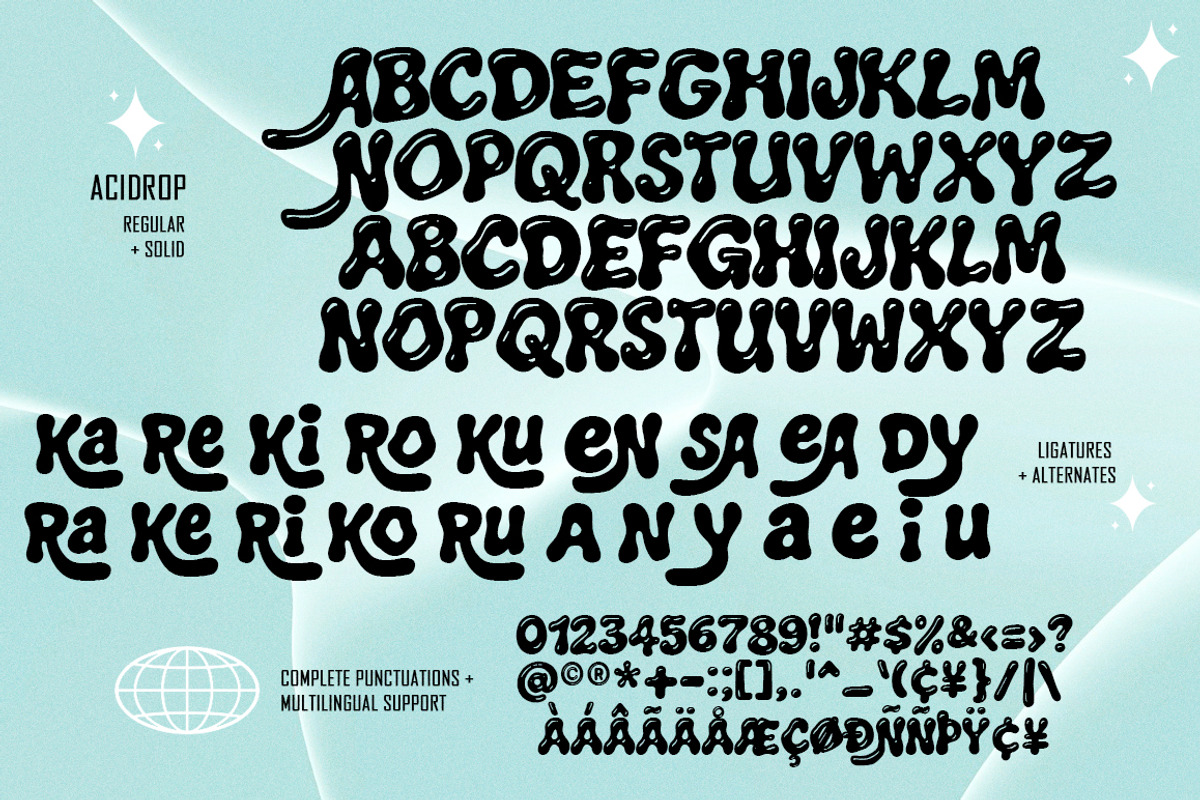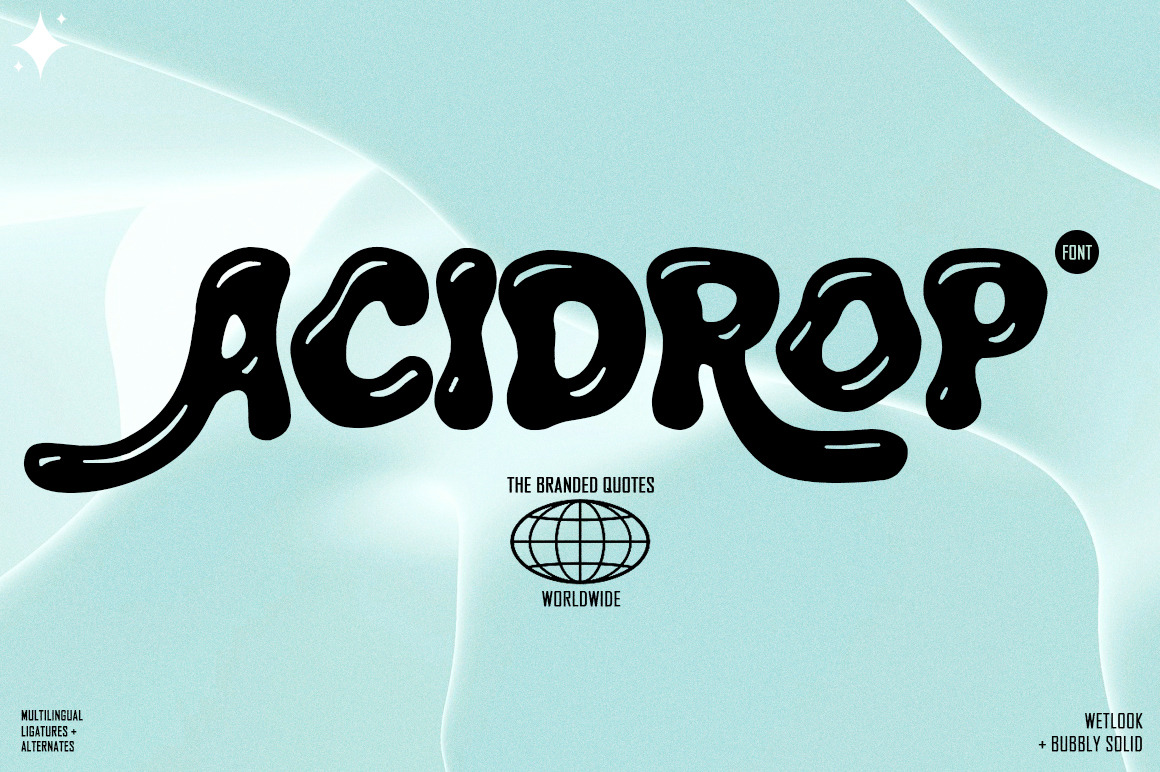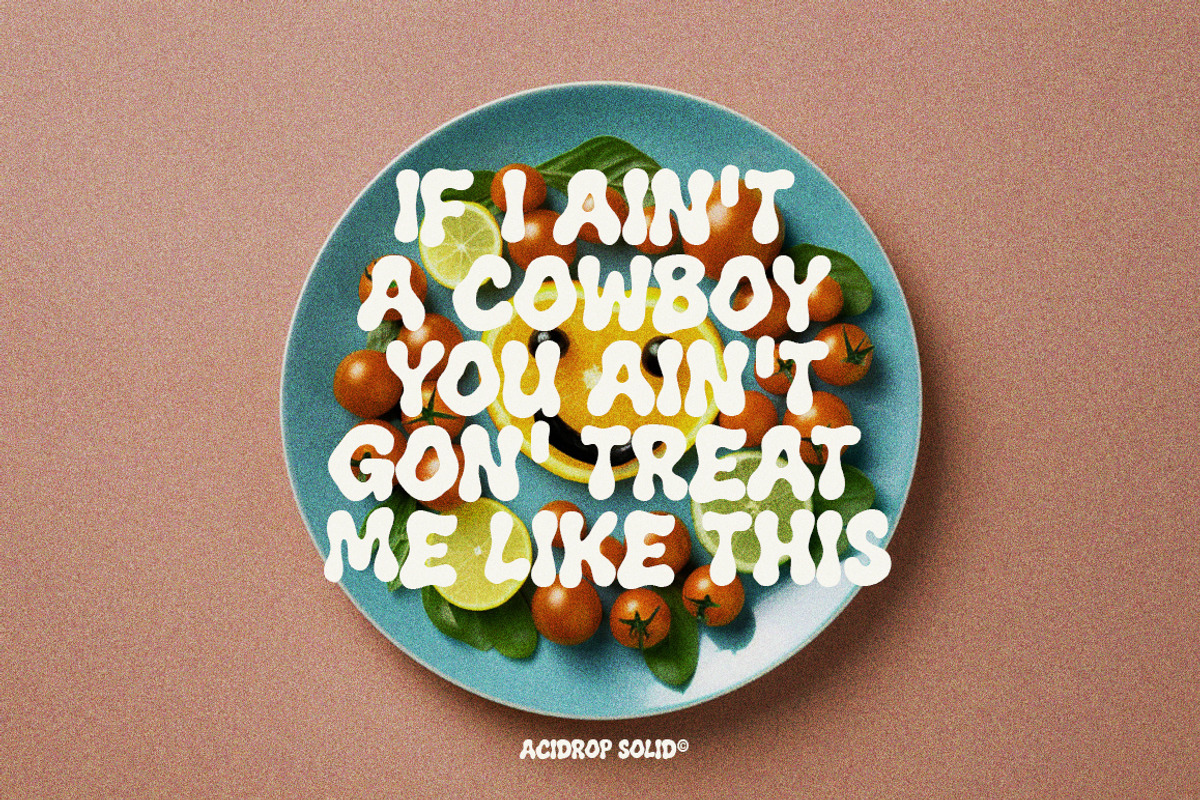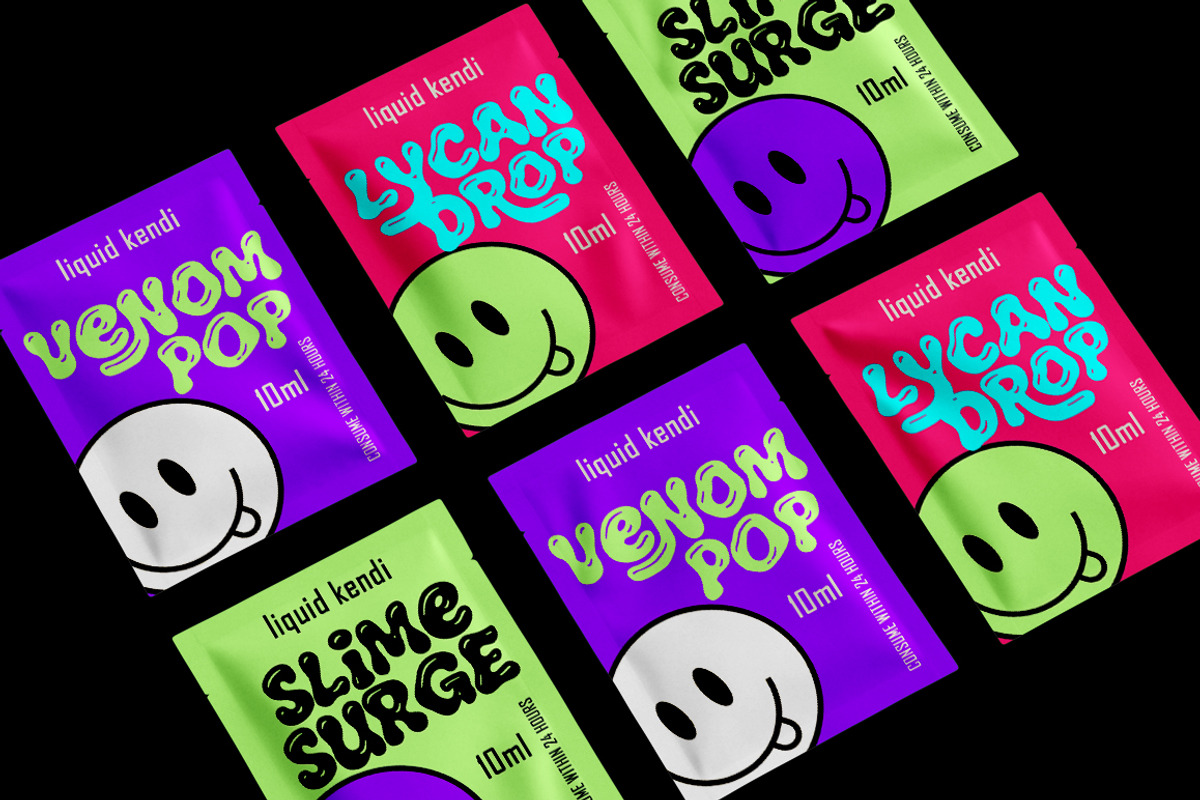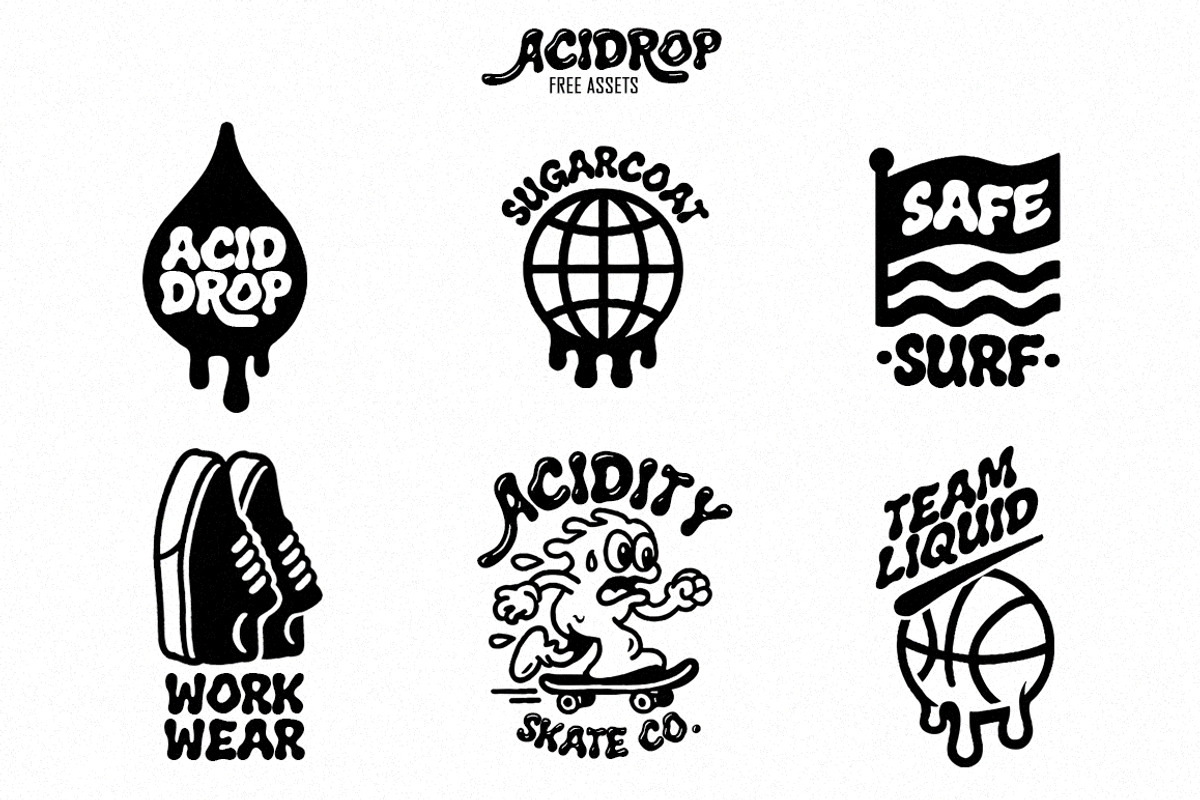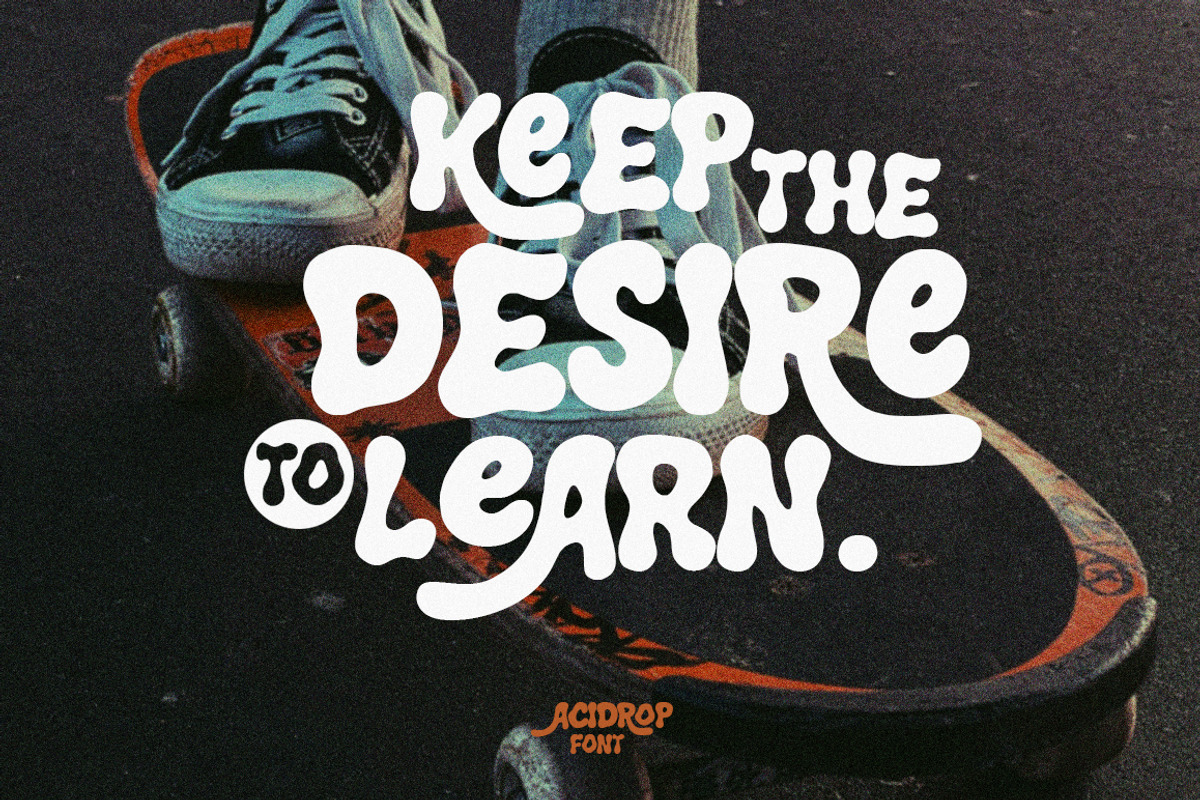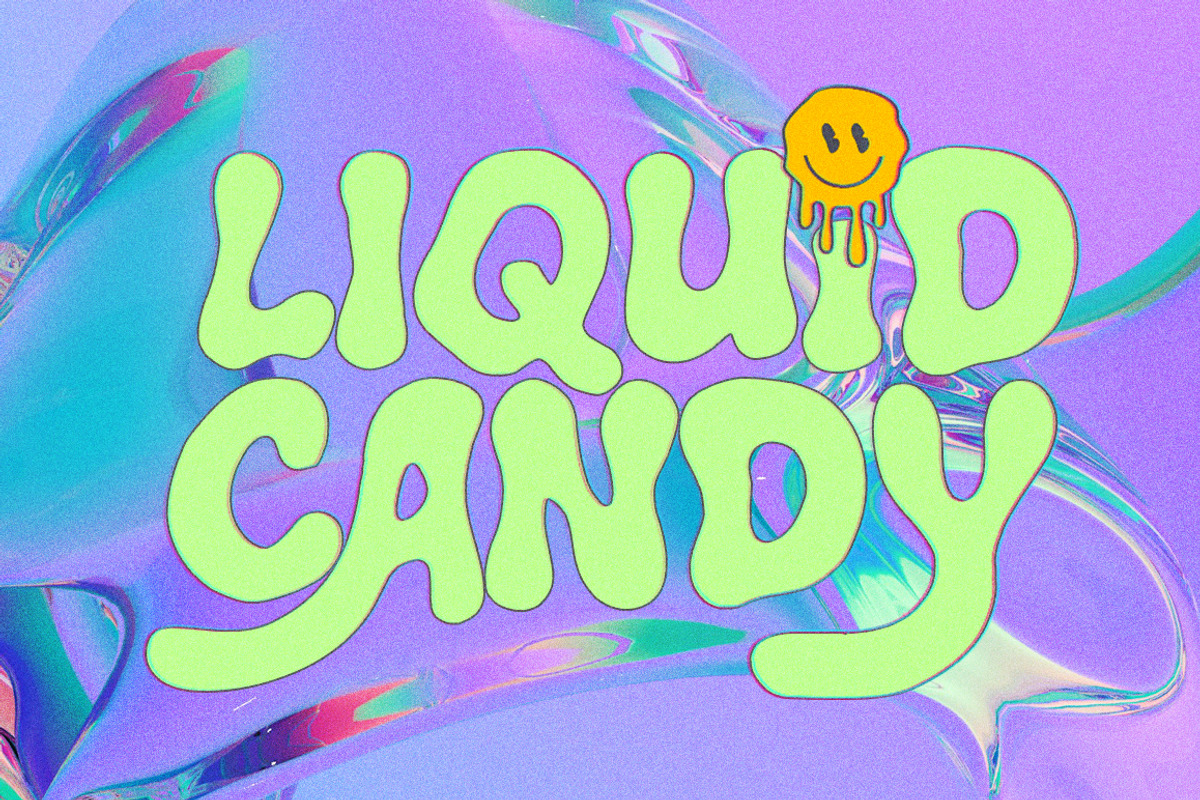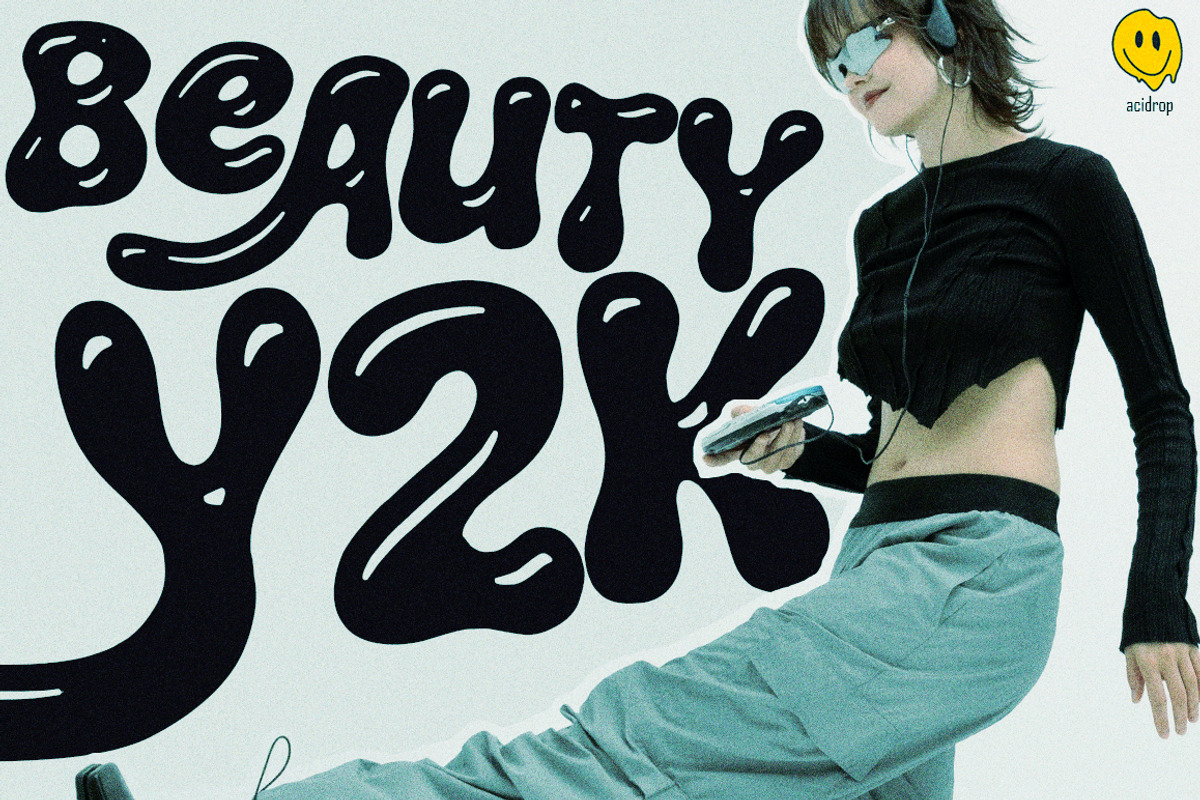
Acidrop Font
Acidrop is a bubbly Y2K vibe font with built-in shine and wet-look effect. Its playful appearance makes it ideal for projects that seek to convey energy and modernity. Once the OpenType features are turned off, Acidrop turns into a generic-looking squiggly font that is great for branding and one-liner or multiline quotes. It has two different variations so you can add your own liquid and bubble text effect on the font. Additionally, experiment with color contrasts to enhance its glossy features and make your text truly pop.
Acidrop Regular - bubbly font with built-in shine and wet-look effect.
Acidrop Solid - squiggly solid version with bold appearance.
Features: Complete Alphabet & Punctuations | Multilingual Support | Ligatures | Alternates